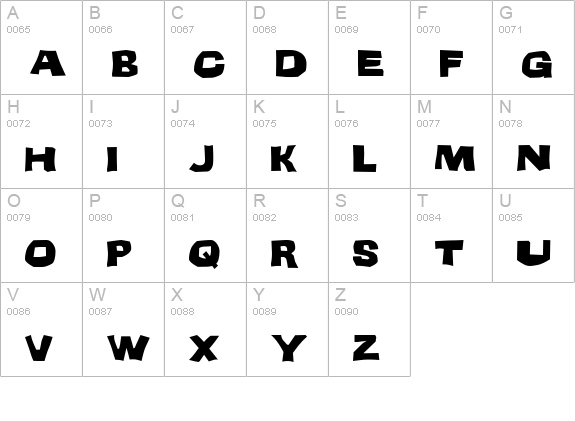
Teenage Delinquent Font Details
Introducing Teenage Delinquent, a rebellious and edgy font that perfectly captures the spirit of teenage defiance. This font exudes a bold and daring energy, making it ideal for projects that demand a touch of youthful rebellion. With its sharp edges and unconventional letterforms, Teenage Delinquent stands out from the crowd, making a statement wherever it is used. Whether you're designing a poster for a punk rock concert or creating graphics for an underground skateboarding brand, this font will add an undeniable coolness to your work. But what sets Teenage Delinquent apart from other fonts is its unique aspect of being freely available. That's right, you can download this font for free at FontsMarket.com. We believe that creativity should never be limited by financial constraints, and that's why we are thrilled to offer Teenage Delinquent as a free resource for designers and creatives alike. So go ahead, unleash your rebellious side and let Teenage Delinquent bring an unruly and youthful vibe to your designs. Download it now, and let your creativity run wild with this freely available font from FontsMarket.com.